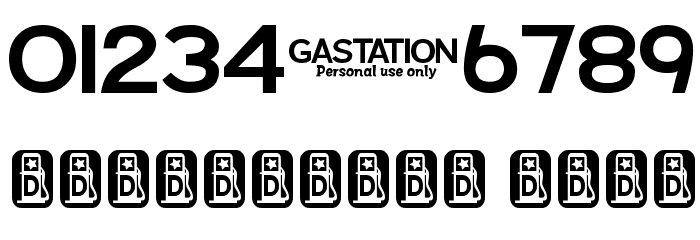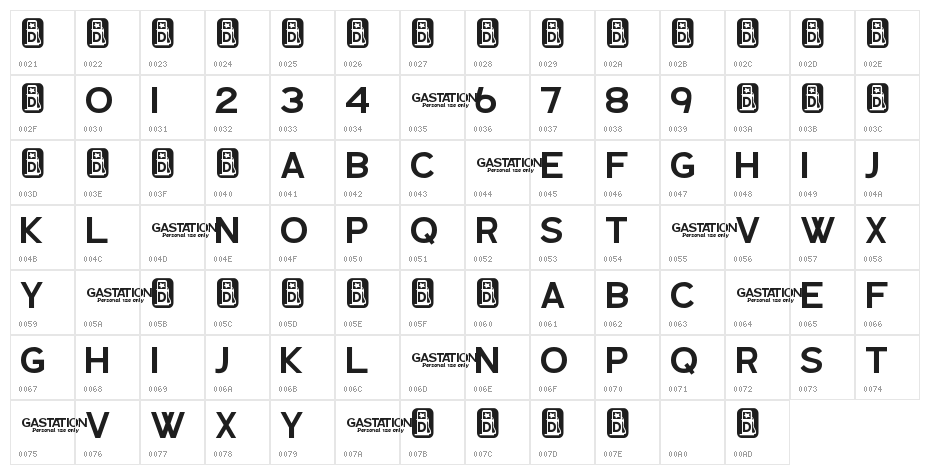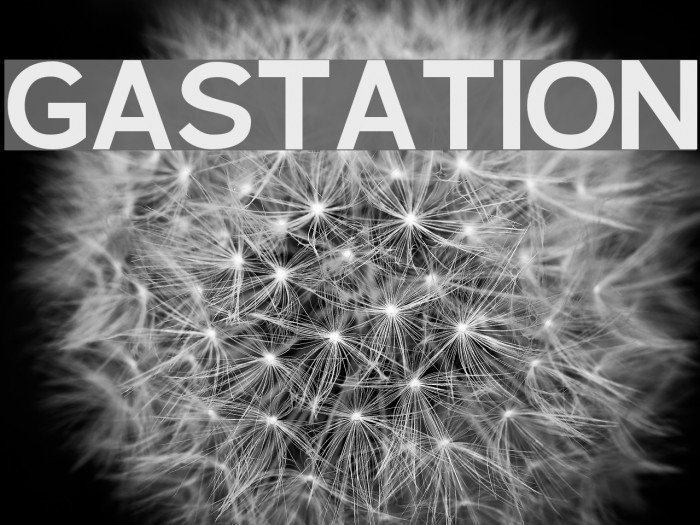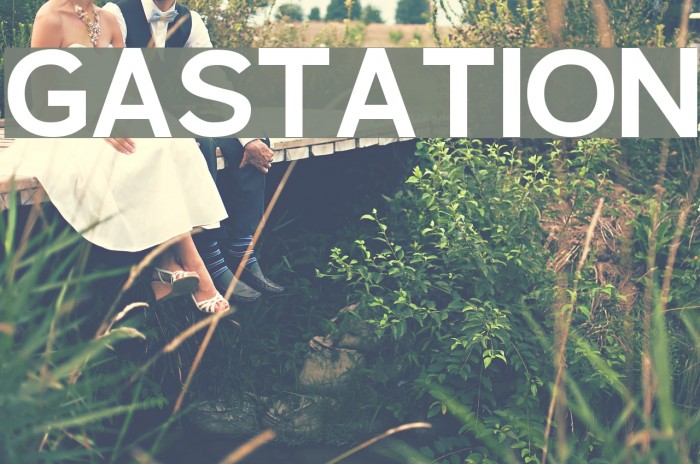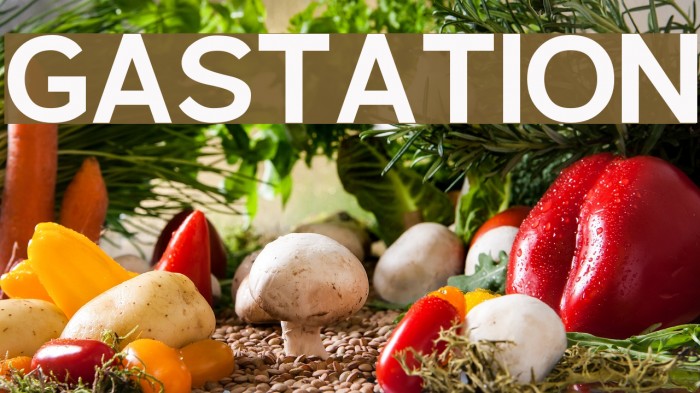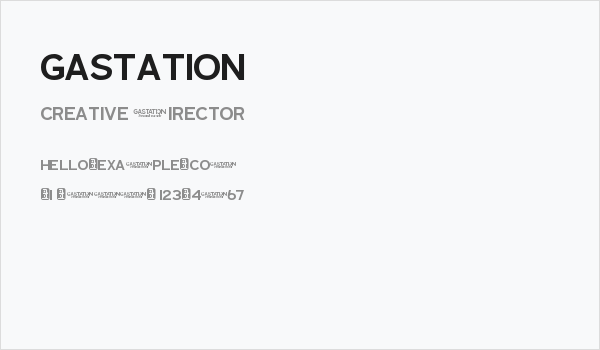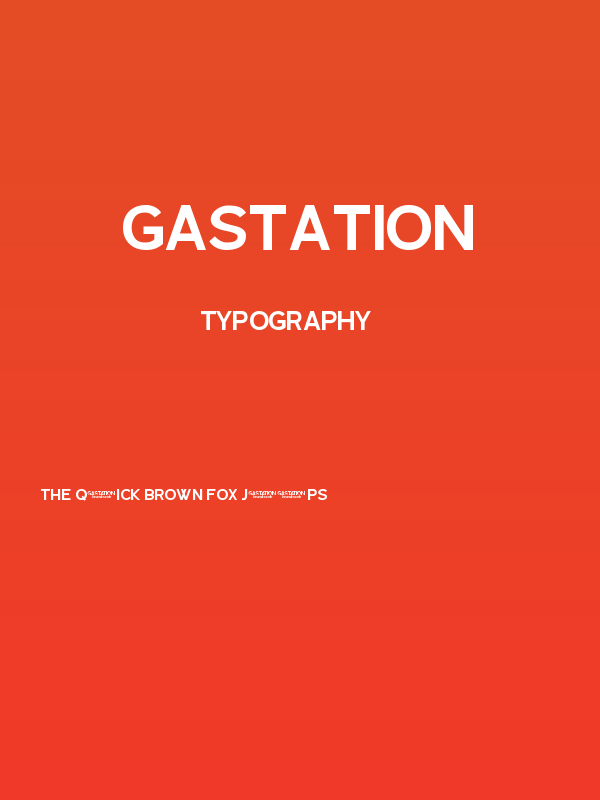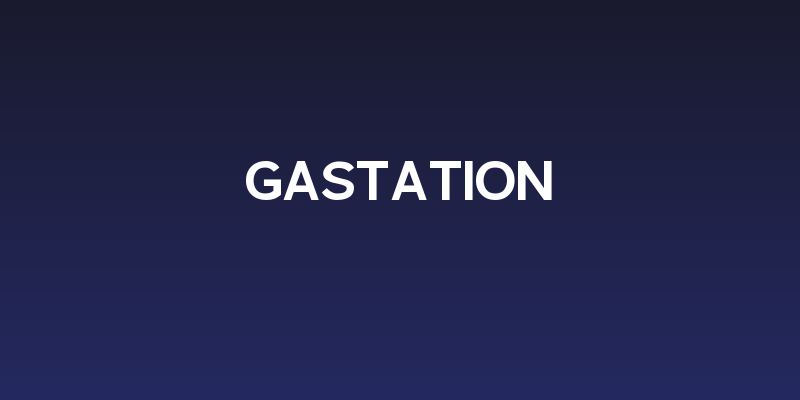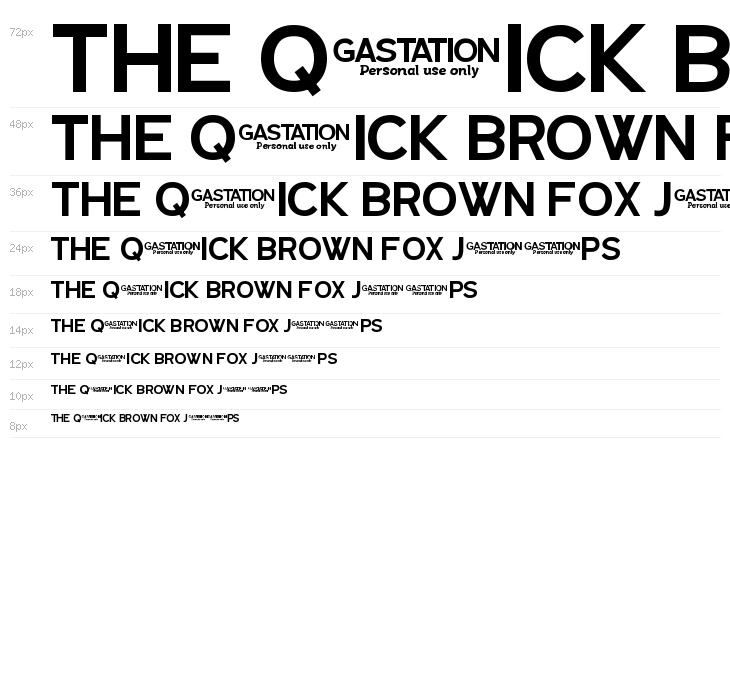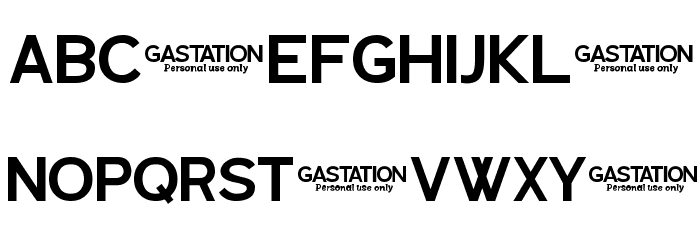
Gastation Font
Gastation Description
This font features a bold and modern design with clean, straight lines and uniform stroke widths. The characters are well-defined, with a geometric structure that gives them a contemporary feel. The uppercase letters are particularly striking, with a strong presence that makes them ideal for headlines or titles. The numerals are equally bold, maintaining the same geometric style as the letters. The font includes a set of special characters, which are designed with the same attention to detail and consistency. Overall, this font is versatile and can be used in various design projects where a modern and bold typeface is required.
| Proposed Projects | Ideal for branding, advertising, posters, and digital media where a strong, modern presence is needed. |